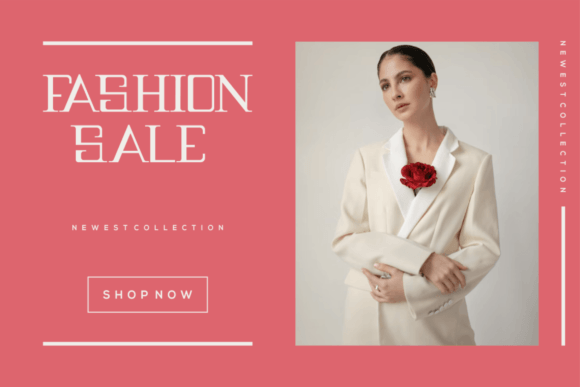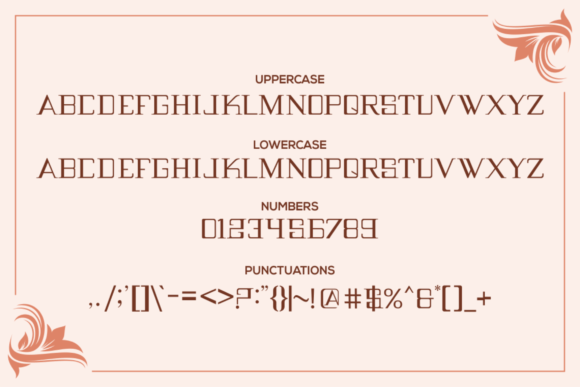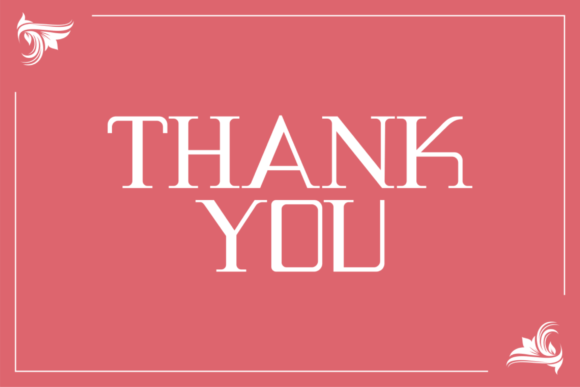
Introduction to Reline Font
Reline modern serif font with interesting variations.
Bring a little magic or romance to your workβ€”it’s a fun twist on the traditional look and feel of a classy serif font .
Key Features of Reline Font